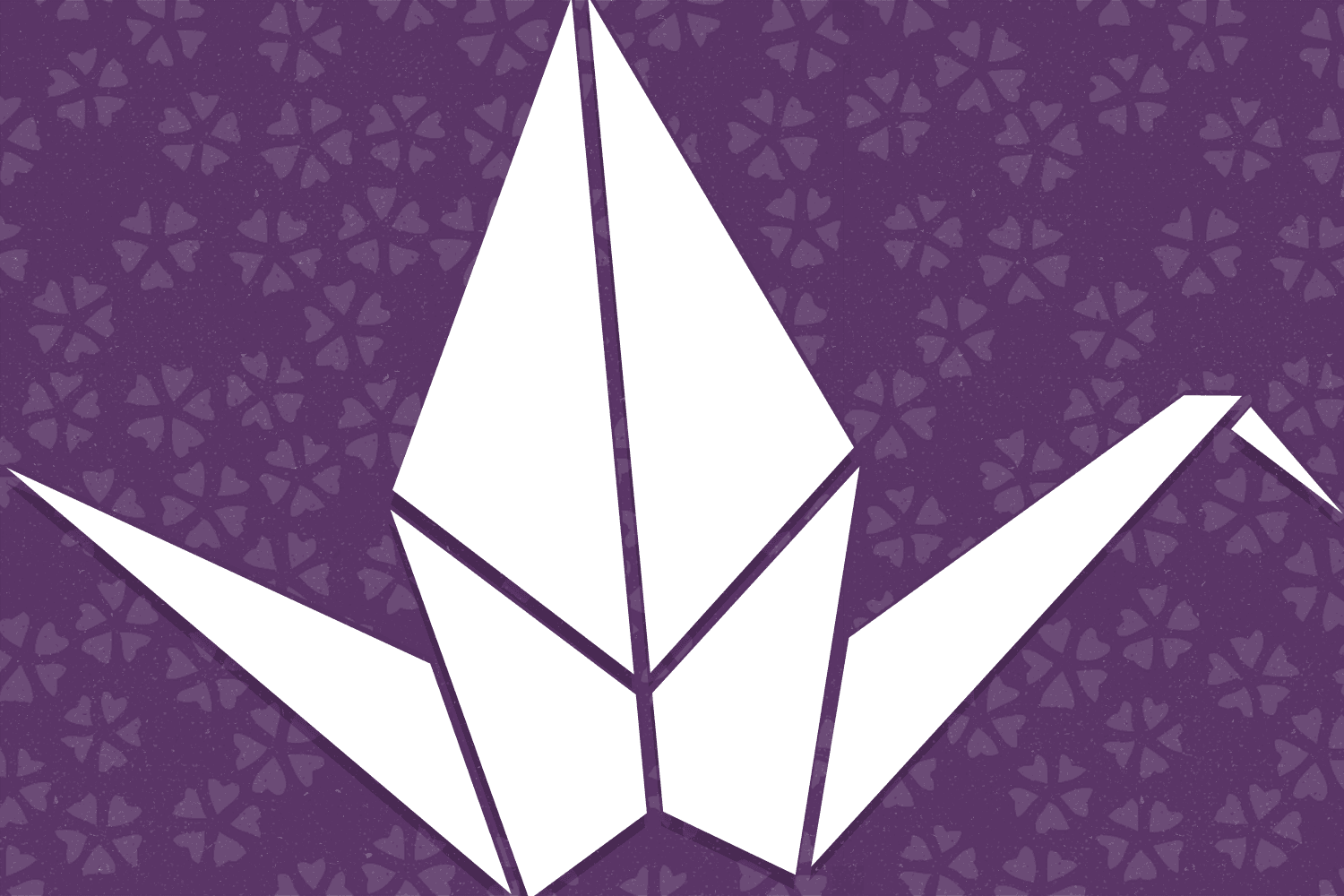
OrigamiBats
The art of paper folding in dingbat form.
The uppercase alphabet is made up of origami animals and the lowercase offers the same shapes decorated in traditional origami paper patterns. Full patterns, flowers, and partial foldings fill out the symbols and numbers.